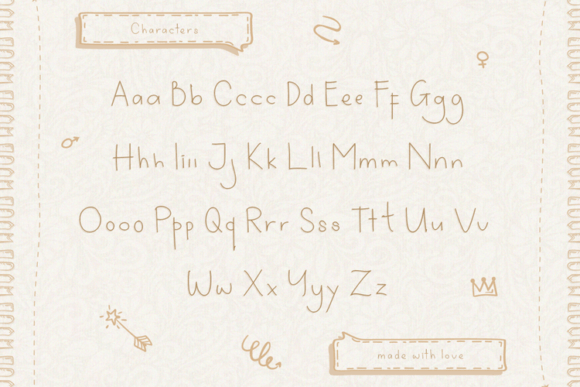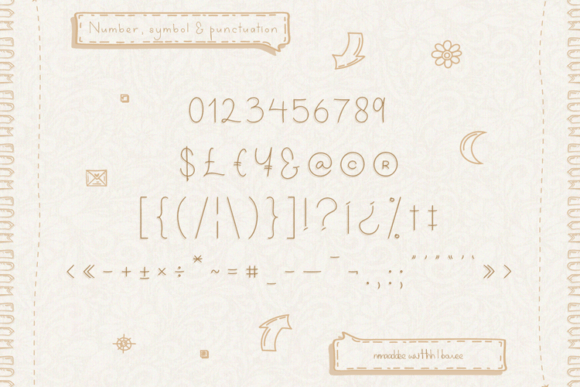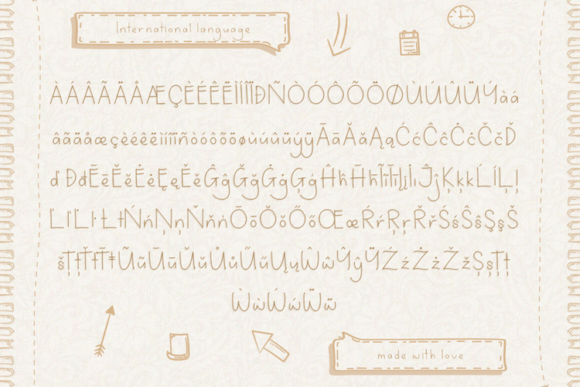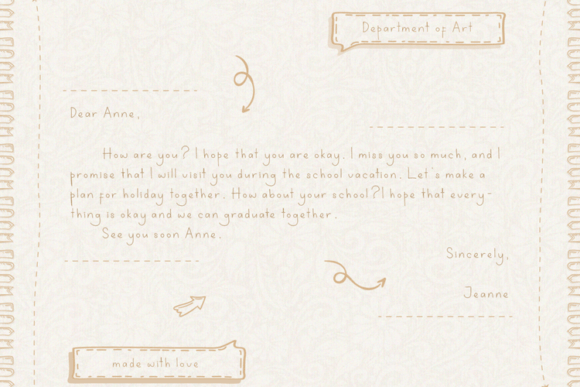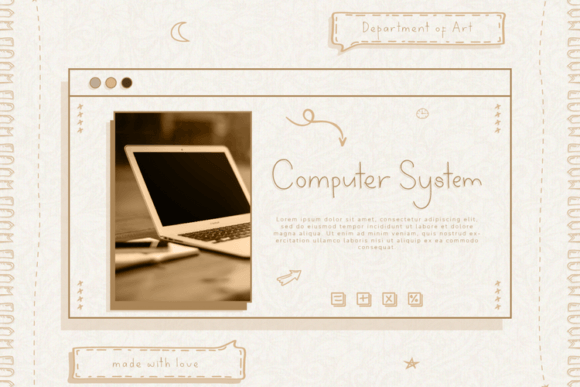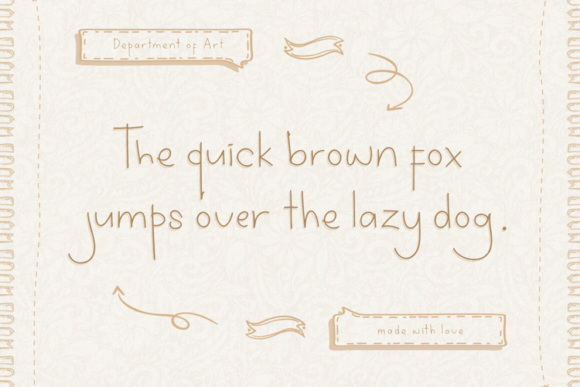
Introducing Department of Art Font: Elevate Your Designs with a Touch of Modern Femininity
In the world of design, fonts play a pivotal role in conveying messages, evoking emotions, and setting the tone for a brand or project. For those seeking a modern and feminine touch, the Department of Art font emerges as a game-changer. This beautifully crafted handwritten font is designed to infuse a refreshing and elegant look into your designs, making it an ideal choice for creatives and designers alike.
The Essence of Department of Art Font
Department of Art is not just another font; it’s a statement piece that brings a unique blend of modernity and femininity to the table. Its handwritten nature lends a personal and approachable feel to any design, making it perfect for projects that require a touch of elegance and sophistication. Whether you’re working on branding, packaging, social media content, or any other visual project, this font is sure to make your designs stand out.
Key Features of Department of Art Font
- Modern and Feminine: The Department of Art font boasts a contemporary look with a distinctly feminine flair, making it versatile for a wide range of design applications.
- Handwritten with Love: Each letter is carefully crafted by hand, giving the font a unique and personal feel that sets it apart from more traditional or machine-generated fonts.
- High Versatility: Its elegant and clear design makes it suitable for various types of projects, from digital content to print materials.
- Easy to Read: Despite its stylish and artistic nature, the font maintains a high level of readability, ensuring your message is conveyed clearly and effectively.
Who Can Benefit from Department of Art Font?
This versatile font is perfect for a broad spectrum of designers and crafters, including:
- Graphic Designers: Looking for a unique font to add a feminine touch to branding projects, advertisements, or marketing materials.
- Stationery and Journal Designers: Creating beautiful journals, planners, or stationery sets that require a personal and elegant feel.
- Digital Content Creators: Needing a stylish and readable font for social media graphics, blog posts, or website headers.
- Crafters and Makers: Producing handmade products, such as crafts, jewelry, or art pieces, that require distinctive and appealing typography.
Tips for Using Department of Art Font Effectively
To maximize the impact of the Department of Art font in your designs, consider the following tips:
- Mix and Match: Combine the font with other complementary fonts to create visual interest and hierarchy in your designs.
- Play with Colors: Enhance the font’s feminine and modern qualities by pairing it with pastel colors, soft neutrals, or bold contrasting hues.
- Experiment with Sizes: Use varying font sizes to emphasize certain words or phrases, adding depth and dynamism to your text.
The Department of Art font is a beautiful addition to any designer’s toolkit, offering a perfect blend of modernity and femininity. Its elegance, versatility, and readability make it an excellent choice for a wide range of projects. Whether you’re a professional designer or a passionate crafter, this font is sure to inspire and elevate your designs. So, embrace the Department of Art font and let its unique charm breathe new life into your creative endeavors.